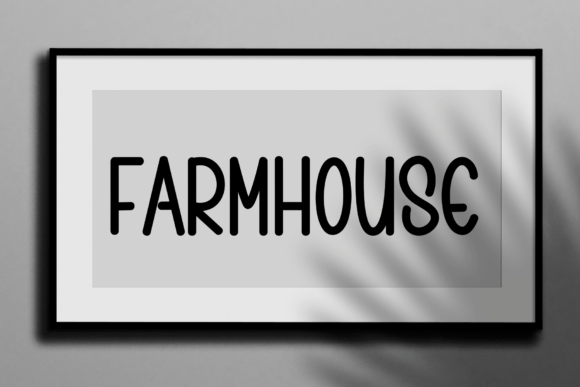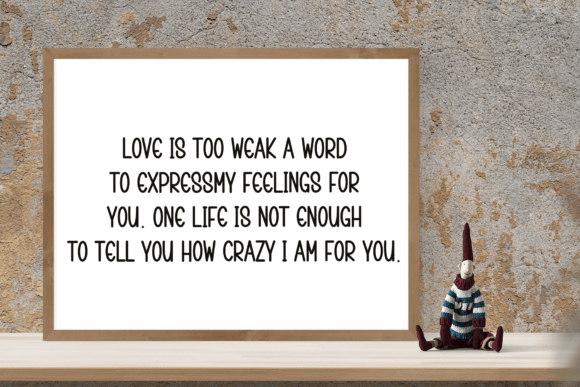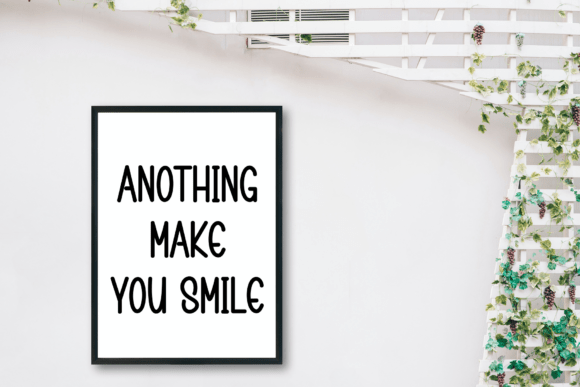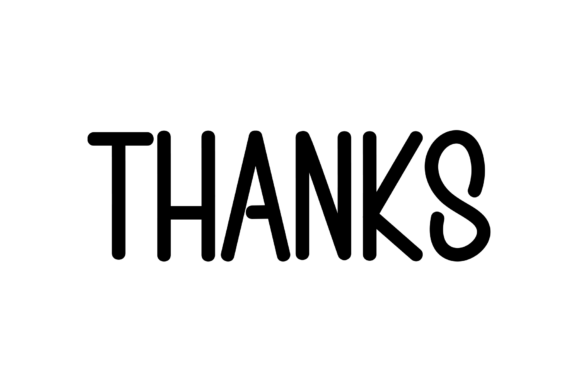
Introducing Course Font: A Sweet and Beautiful Handwritten Delight
Are you a designer or crafter looking for a font that adds a touch of warmth and personality to your projects? Look no further than Course Font, a sweet and beautiful handwritten font that is sure to delight. With its unique characters that dance along the baseline, Course Font is the perfect addition to any design project you wish to create.
What Makes Course Font So Special?
Course Font is a carefully crafted handwritten font that features characters that dance along the baseline, giving it a playful and whimsical feel. The font is designed to add a cozy accent to any design project, making it perfect for a wide range of applications, from invitations and greeting cards to branding and packaging.
One of the standout features of Course Font is its unique and elegant style. The font is characterized by its flowing lines, delicate curves, and subtle imperfections, which give it a distinctly handmade feel. This makes it perfect for designers and crafters who want to add a personal touch to their projects.
Key Features of Course Font
• Handwritten style: Course Font is a genuine handwritten font, carefully crafted to give your projects a personal and unique touch.
• Dancing baseline: The characters in Course Font dance along the baseline, giving the font a playful and whimsical feel.
• Cozy accent: Course Font adds a cozy accent to any design project, making it perfect for a wide range of applications.
• Elegant style: The font features flowing lines, delicate curves, and subtle imperfections, giving it a distinctly elegant and refined feel.
Uses for Course Font
Course Font is a versatile font that can be used for a wide range of design projects, including:
• Invitations and greeting cards: Add a personal touch to your invitations and greeting cards with Course Font.
• Branding and packaging: Use Course Font to create unique and eye-catching branding and packaging for your products.
• Digital and print media: Course Font is perfect for use in digital and print media, including social media graphics, blog posts, and magazine articles.
• Crafting and DIY projects: Add a touch of personality to your crafting and DIY projects with Course Font.
Why Choose Course Font?
There are many fonts to choose from, but Course Font stands out from the crowd for several reasons:
• Unique style: Course Font has a unique and elegant style that sets it apart from other fonts.
• Easy to read: Despite its handwritten style, Course Font is easy to read and understand, making it perfect for use in a wide range of applications.
• Versatile: Course Font can be used for a wide range of design projects, from invitations and greeting cards to branding and packaging.
• High-quality: Course Font is a high-quality font that is carefully crafted to give your projects a professional finish.
In conclusion, Course Font is a sweet and beautiful handwritten font that is sure to delight designers and crafters alike. With its unique characters that dance along the baseline, Course Font adds a cozy accent to any design project. Whether you’re looking for a font for invitations and greeting cards, branding and packaging, or digital and print media, Course Font is the perfect choice. So why not give Course Font a try today and see the difference it can make to your design projects?